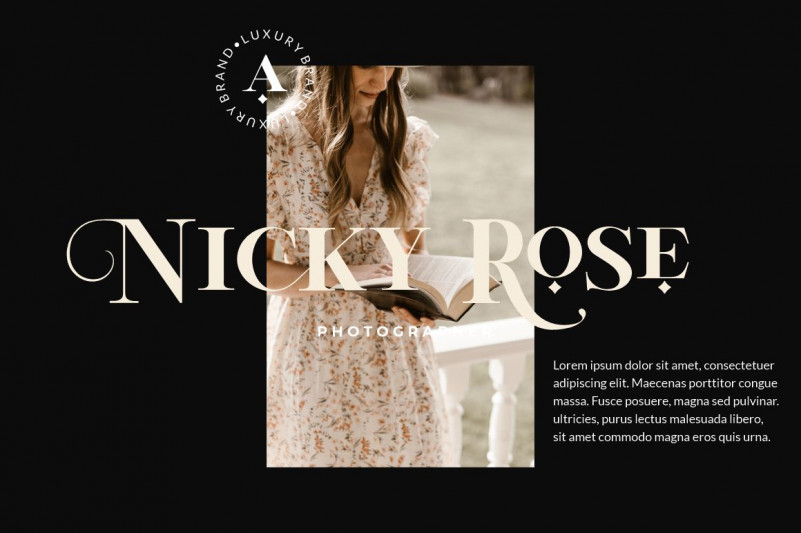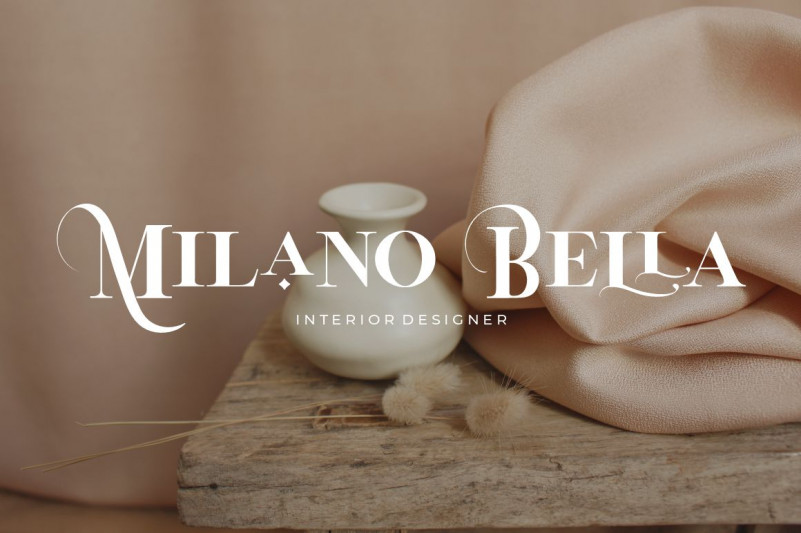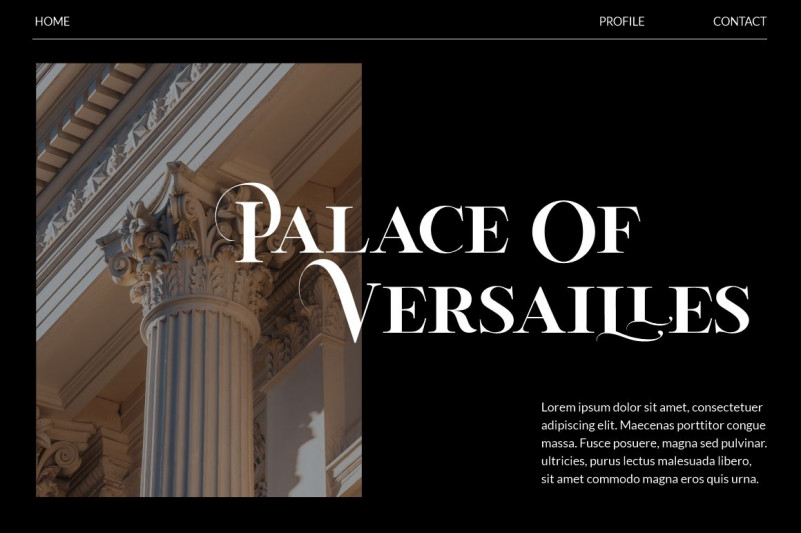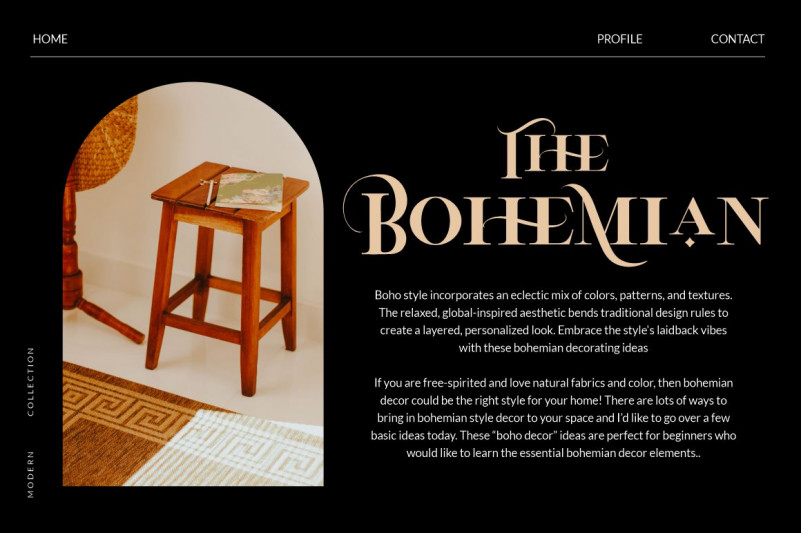
La Vieste Font
La Vieste Serif Font
This is an elegant, distinct and assertive serif font.  It is suitable for branding, signature, wedding invitation, promotion, product packaging, and other needs.
Fall in love with its incredibly versatile style and use it to create spectacular designs!